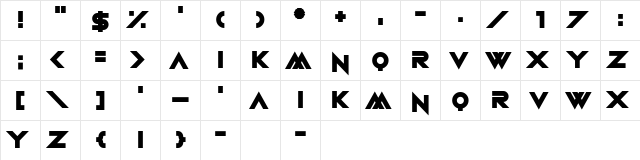
Amuse-Bouche Regular
| Designer | Allison James |
Design Context for Amuse-Bouche Typeface
Amuse-Bouche offers clean, dependable letterforms without strong stylistic allegiance, making it a practical choice for designers who need flexibility.